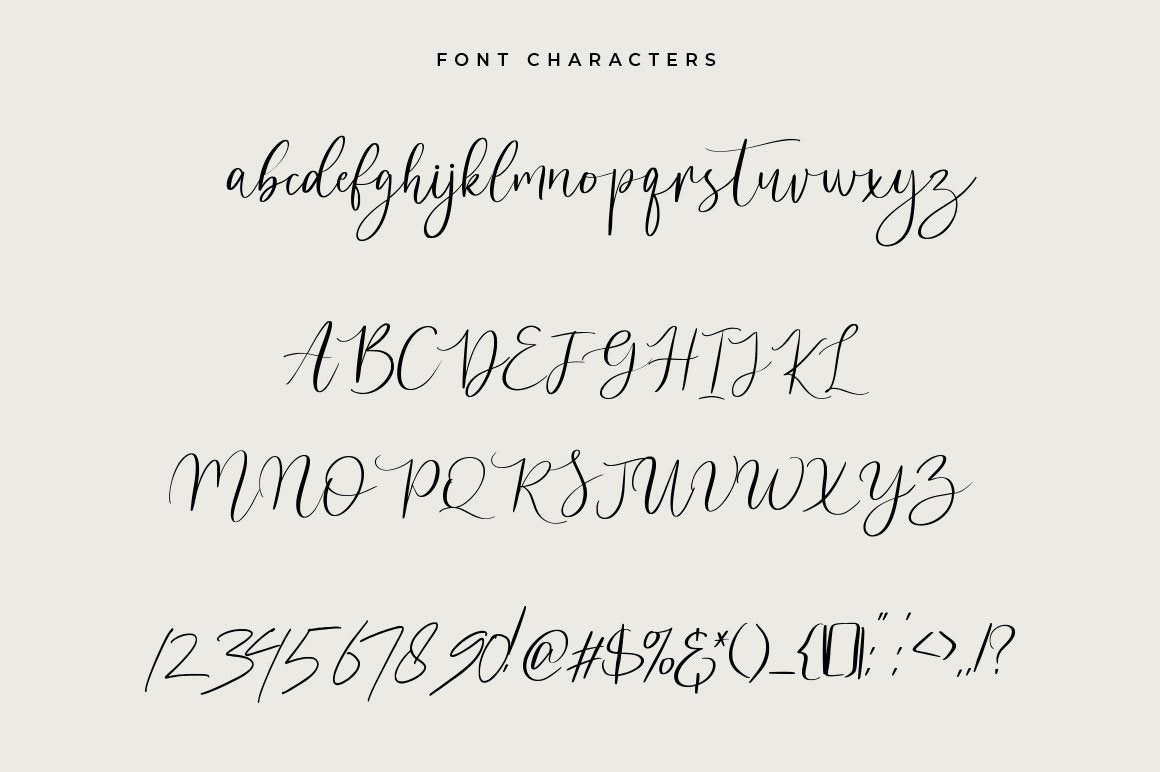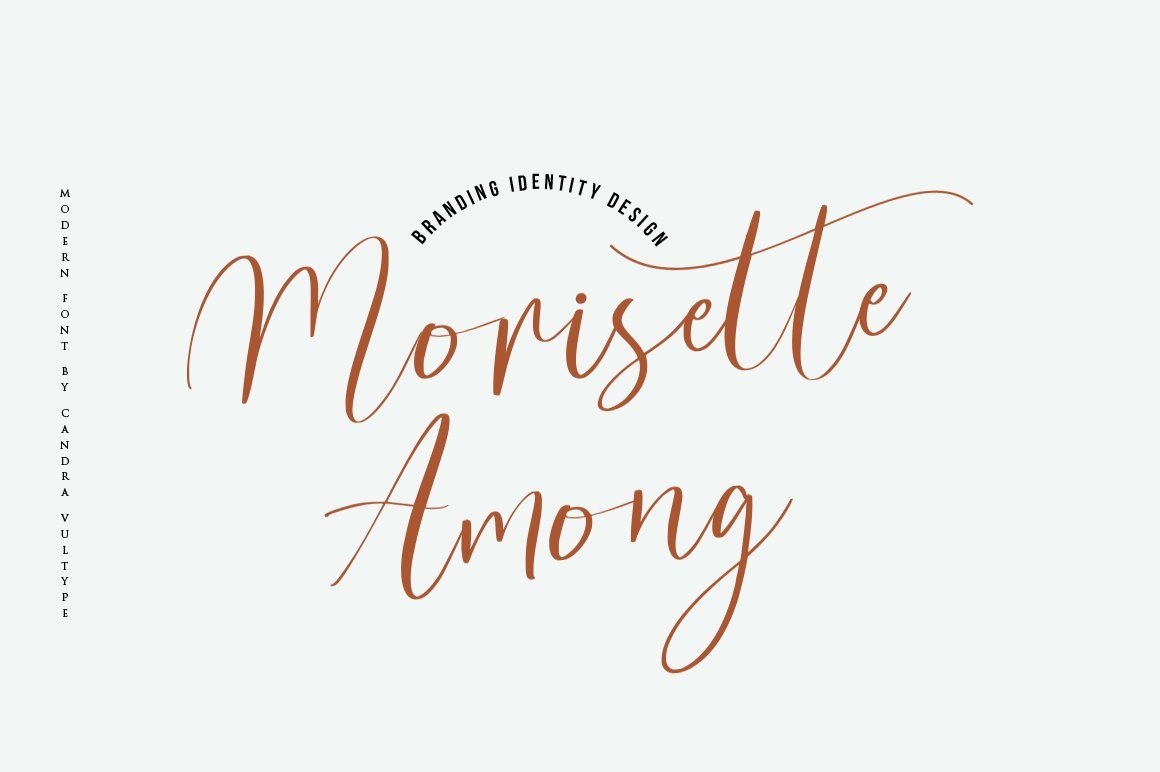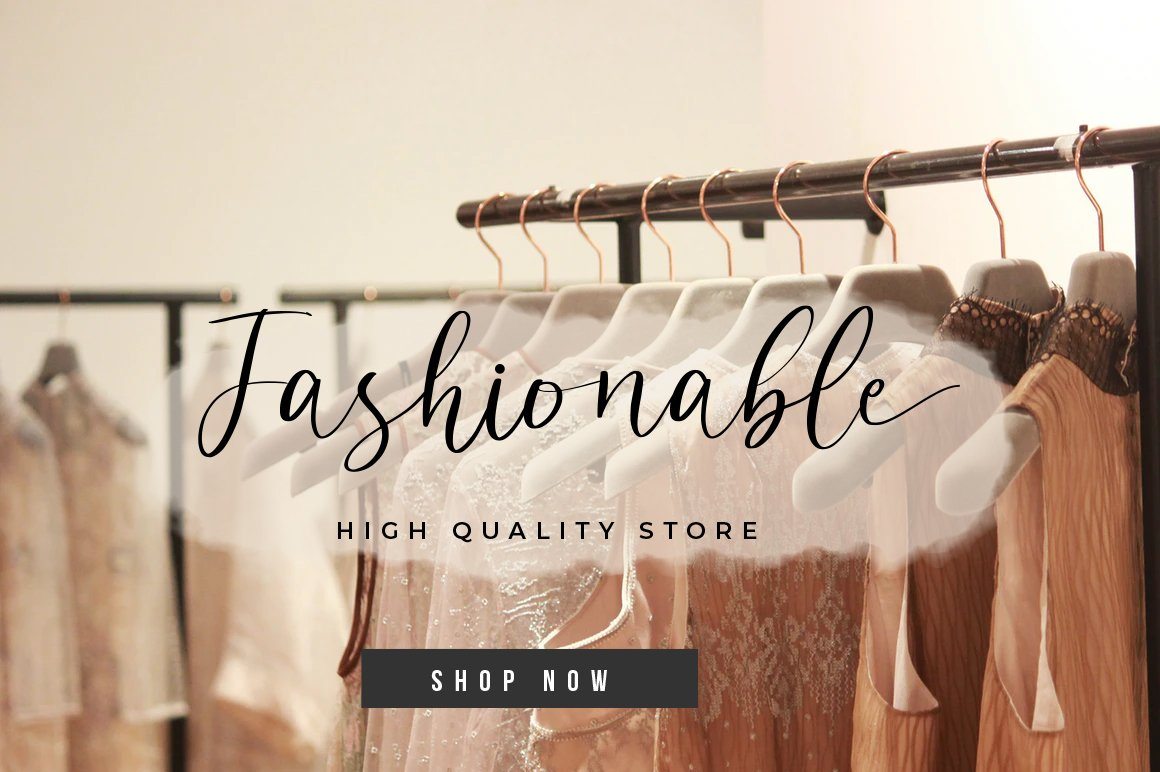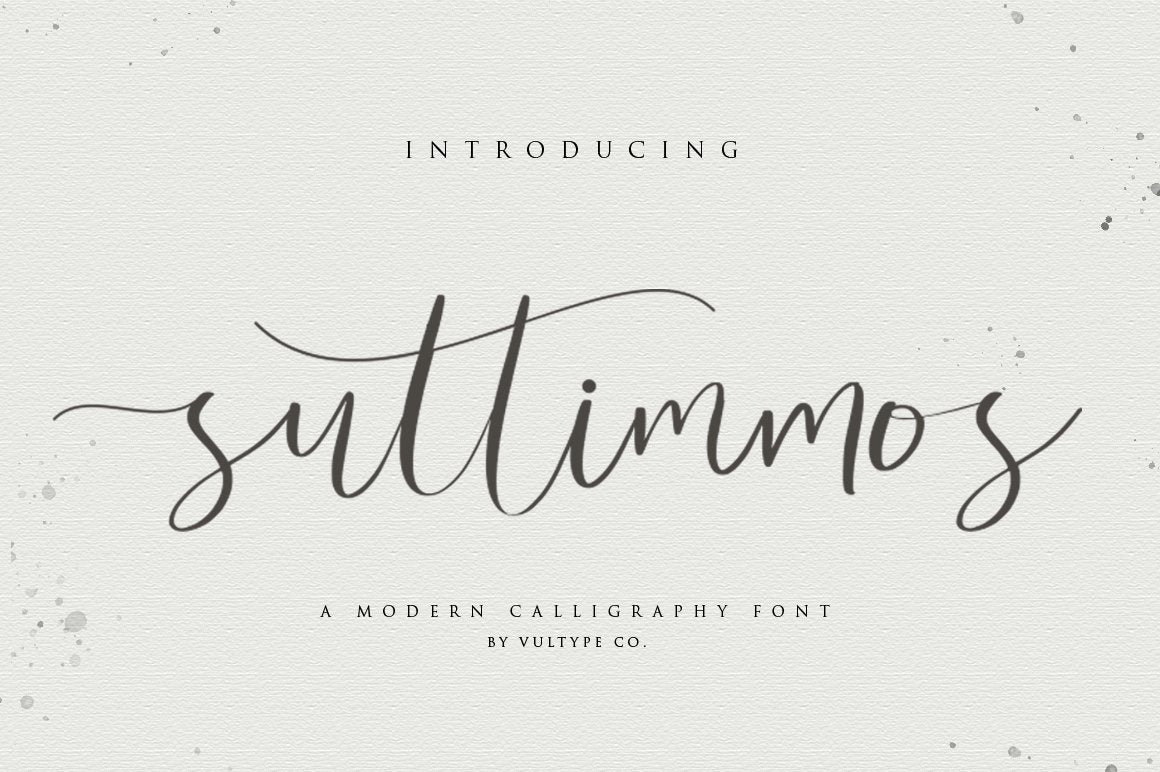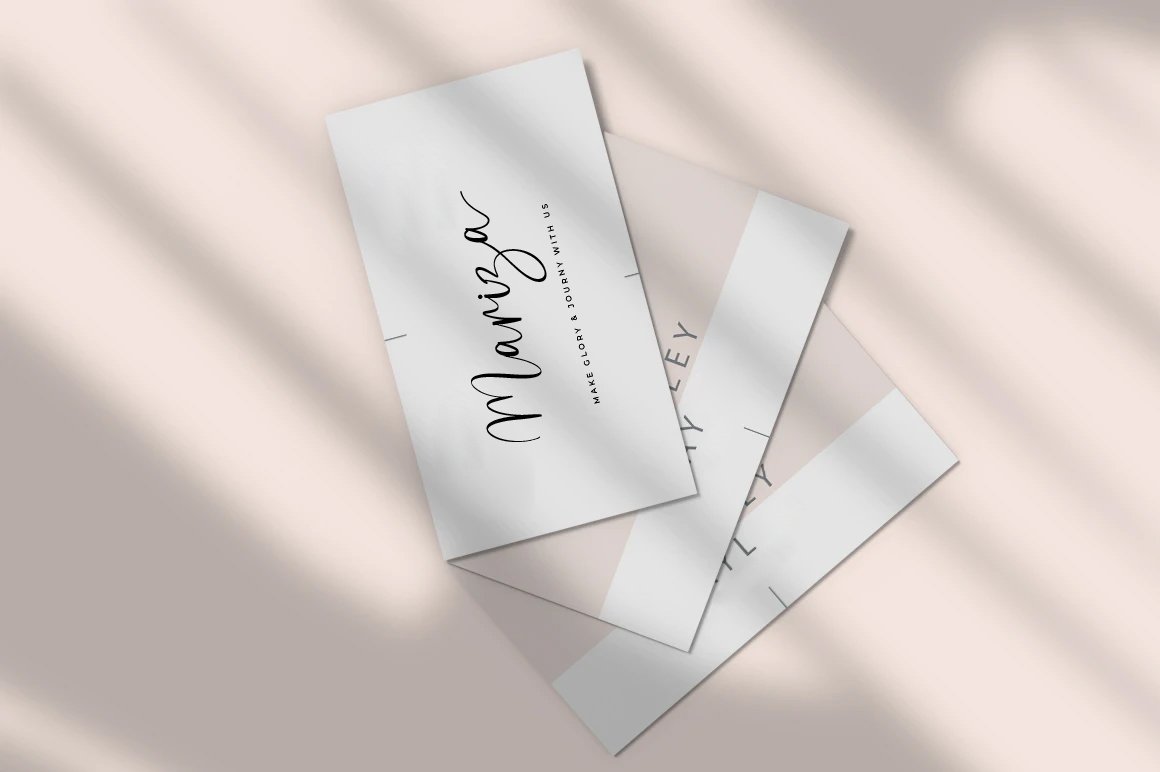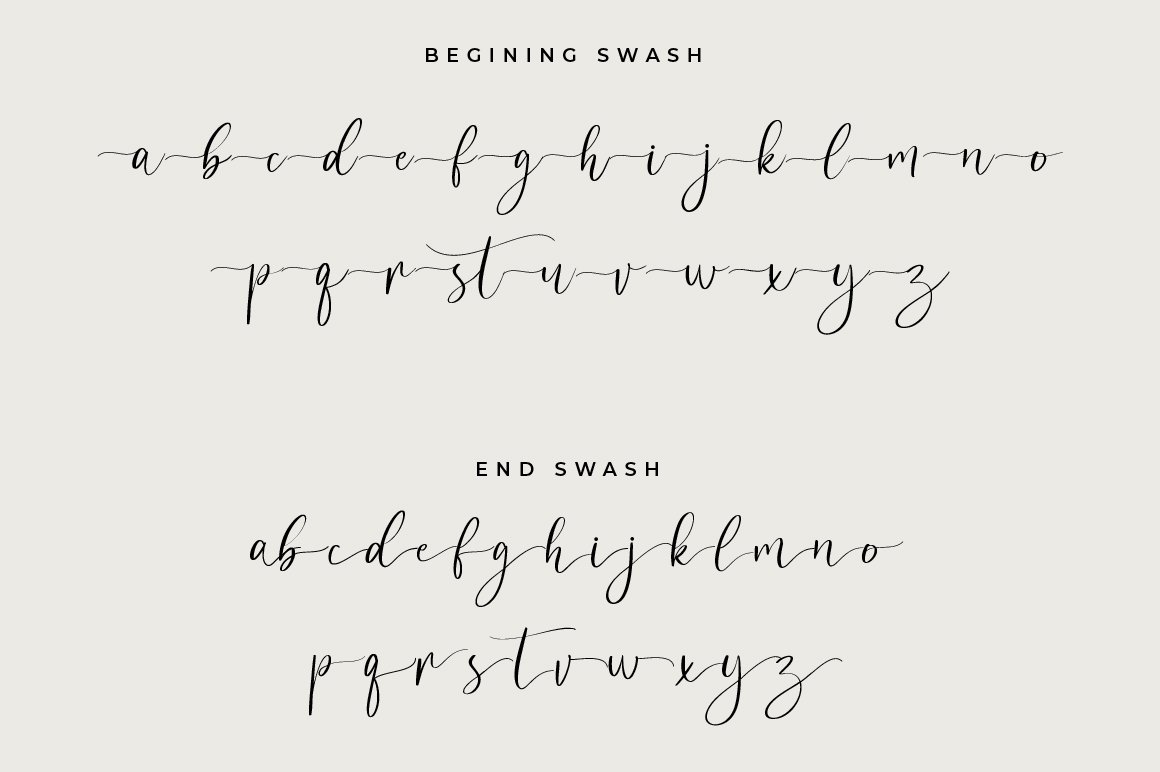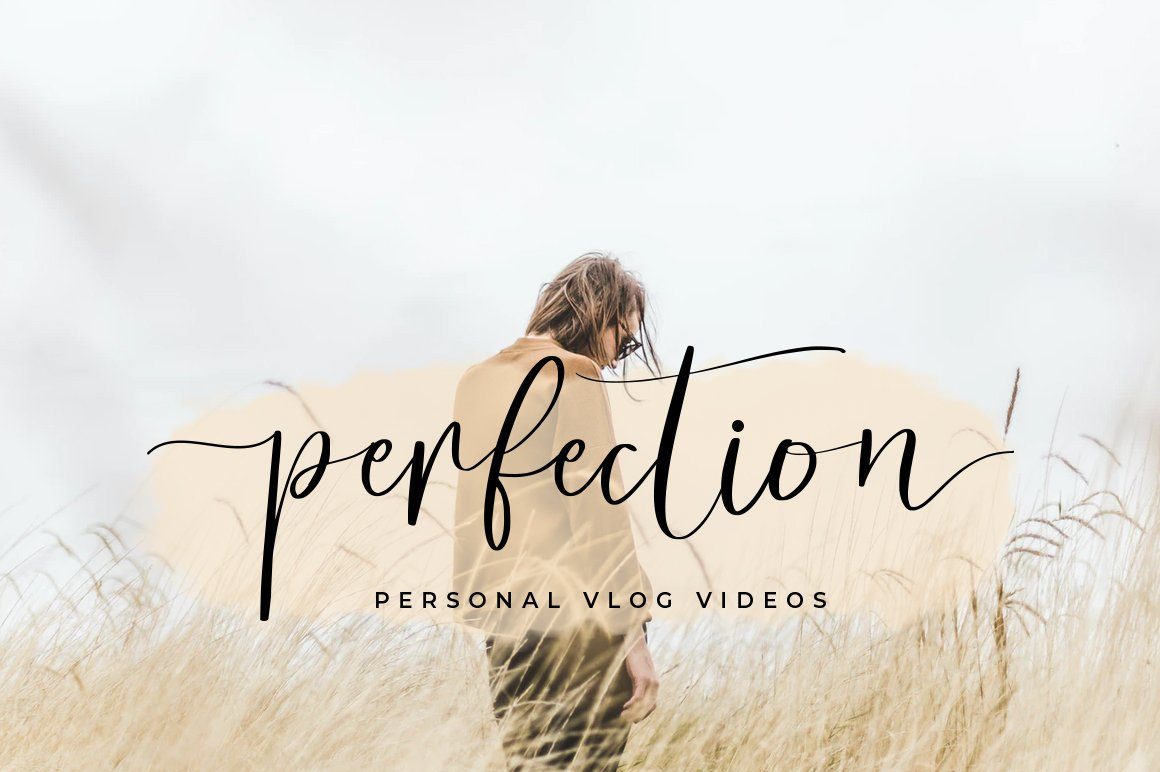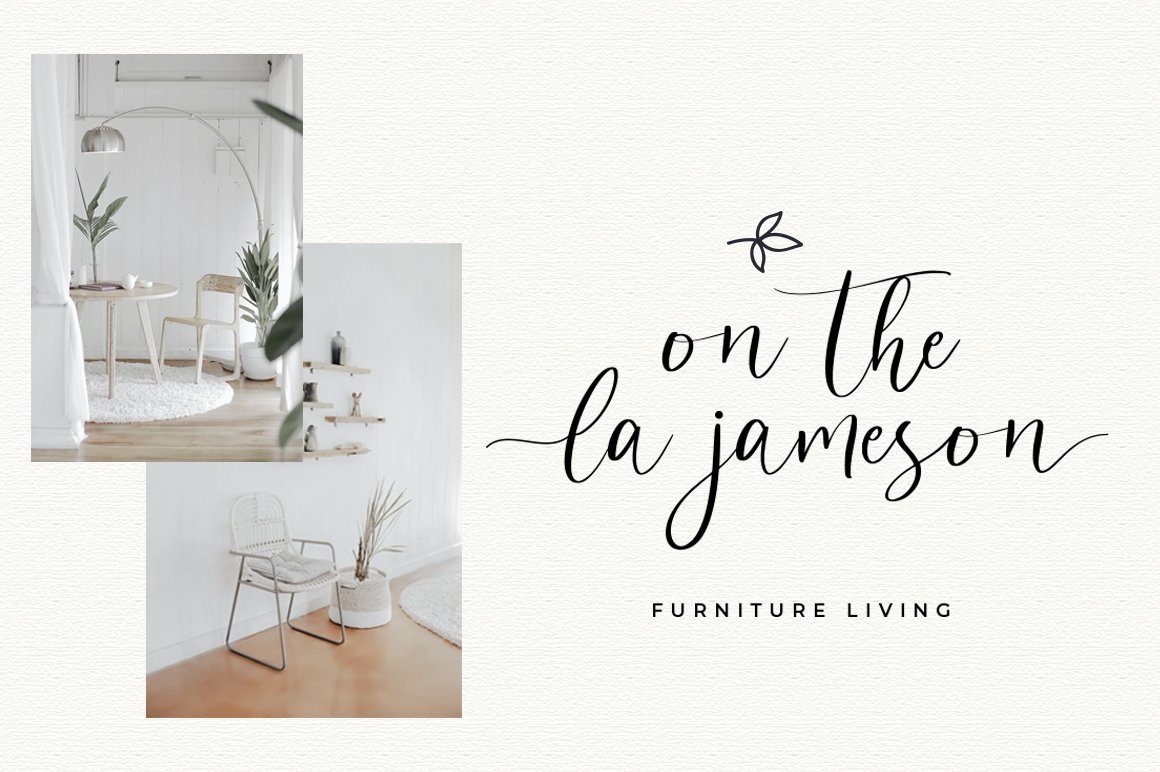
Suttimmos – Calligraphy Font With Swashes
Suttimmos is a delicate and elegant handwritten font. It is PUA encoded, which means that you can access all of the glyphs and swashes with ease! It features a varying baseline, smooth lines, gorgeous glyphs and stunning alternates. Fall in love with its unique style and use it to create spectacular designs! you WIll Get : Zip file containing: either a OTF and TTF files Font Features : Web font file (.WOFF) Uppercase + Lowercase Letters Numbers + Punctuation Ligature Feature OpenType features Multilingual support Compatible with Adobe Illustrator, Adobe Photoshop, Adobe Indesign, Word, Corel draw, inkscape Silhouette Studio, Cricut Design Space, Scan N Cut, and other cutting and design programs Any questions? feel free to send us a message. Have a great day !